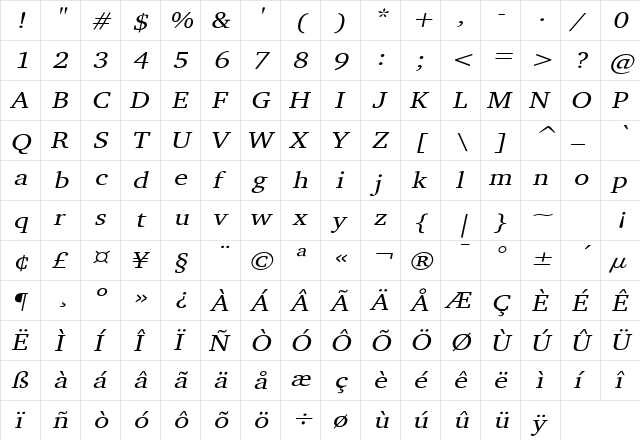
Challenge Wide Italic
Design Context for Challenge Wide Typeface
Challenge Wide is a composed and adaptable typeface that performs quietly and consistently across a wide range of design contexts. The dynamic lean of this cut emphasises speed and emphasis in any layout.
Pro Tip: Try Challenge Wide for annotation and caption copy alongside an upright companion — the contrast in angle creates a dynamic but ordered typographic system.